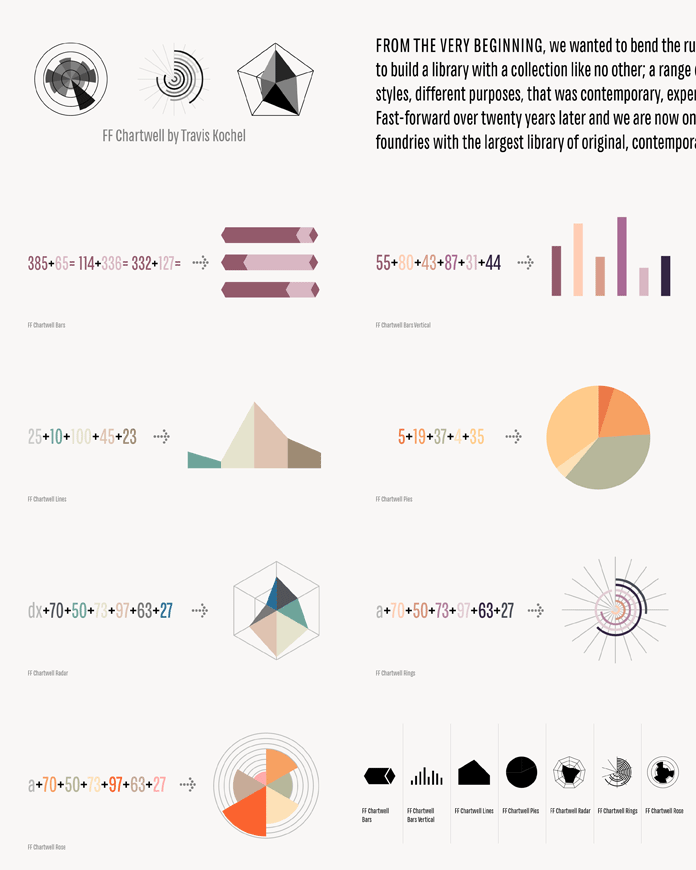
FF Chartwell, a font family designed to create simple diagrams.
After creating several graphs and charts for a business report in countless hours of work, Travis Kochel came up with the idea to develop a font family that gives you the possibility to simply write any diagram. The result is FF Chartwell, a family consisting of 7 typefaces to create the following types of diagrams: bars, vertical bars, lines, pies, radar, rings, and rose graphs. It’s so easy to create a simple diagram. Just type a series of numbers like: “5+20+12+35”, then turn on discretionary ligatures and the diagram is created. If you turn off discretionary ligatures you will see the original data again. This functionality requires software that supports OpenType features like Adobe’s Creative Suite. Its normal experience is based on a simple sans serif typeface in a subtle narrow style, which complements the different graphs perfectly.
This useful type family has received numerous awards such as the CommArts award in 2011, the Letter.2 award in 2011, the Information is Beautiful award in 2012, and the Fast Company Innovation By Design award in 2012. For additional information on the FF Chartwell font family, just follow the link below.